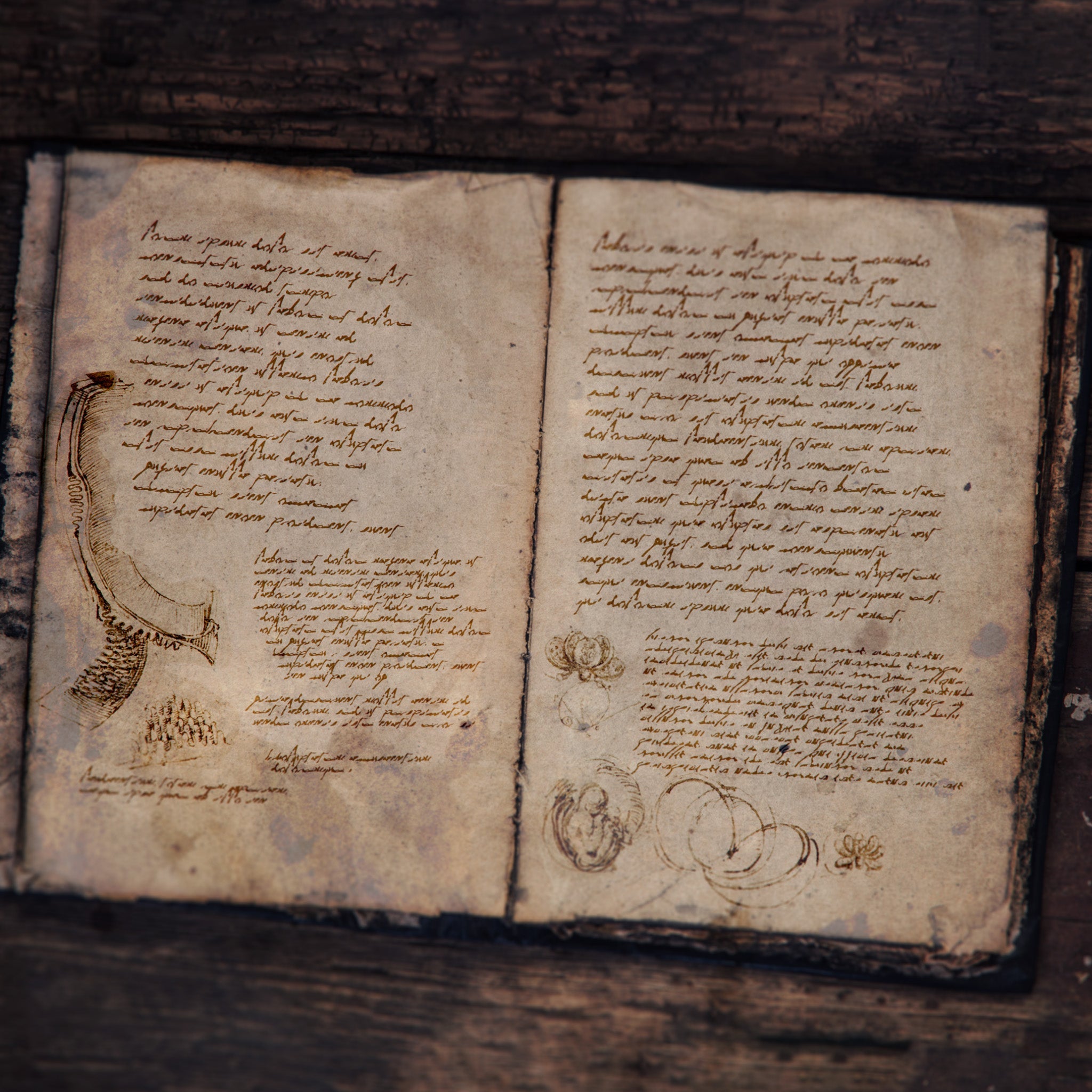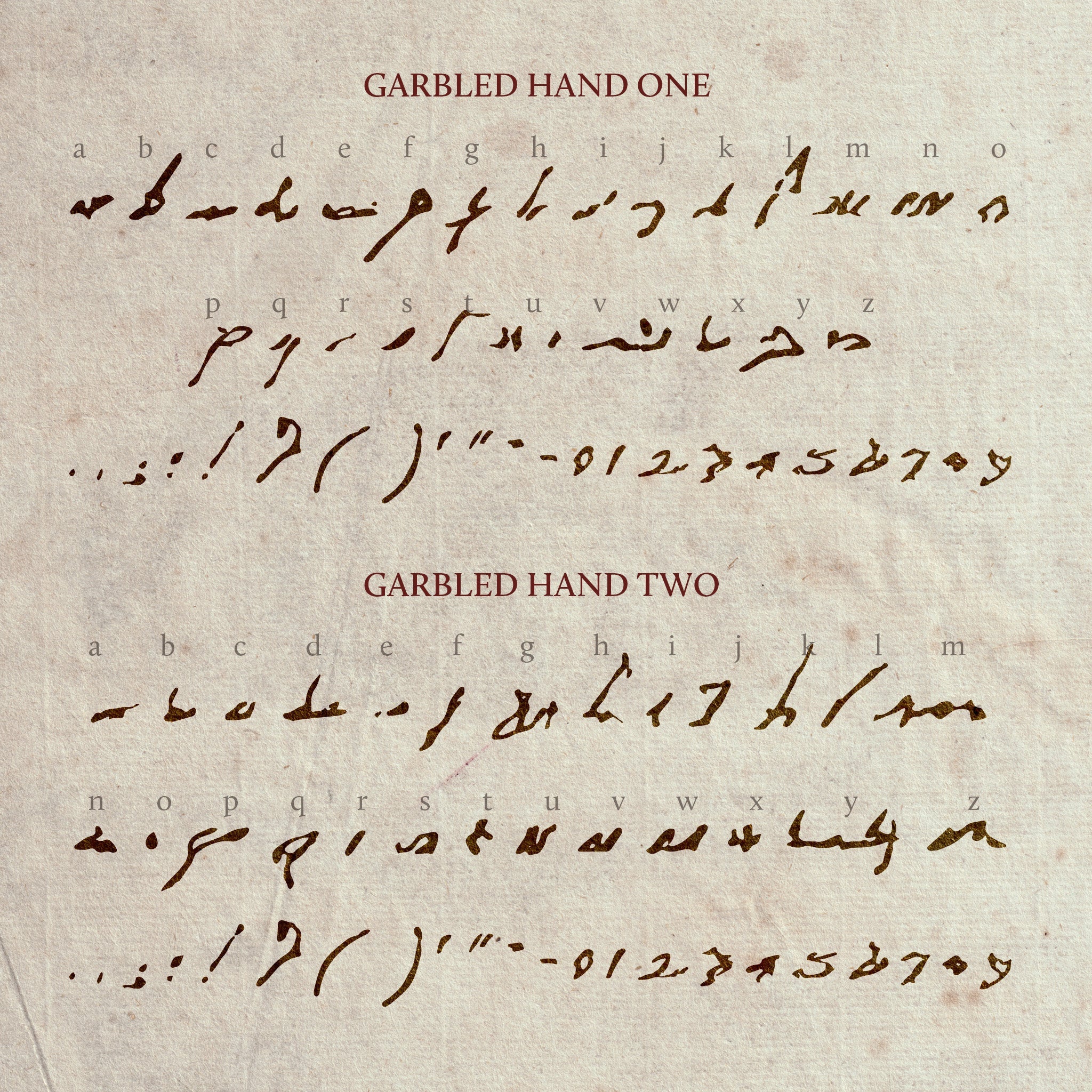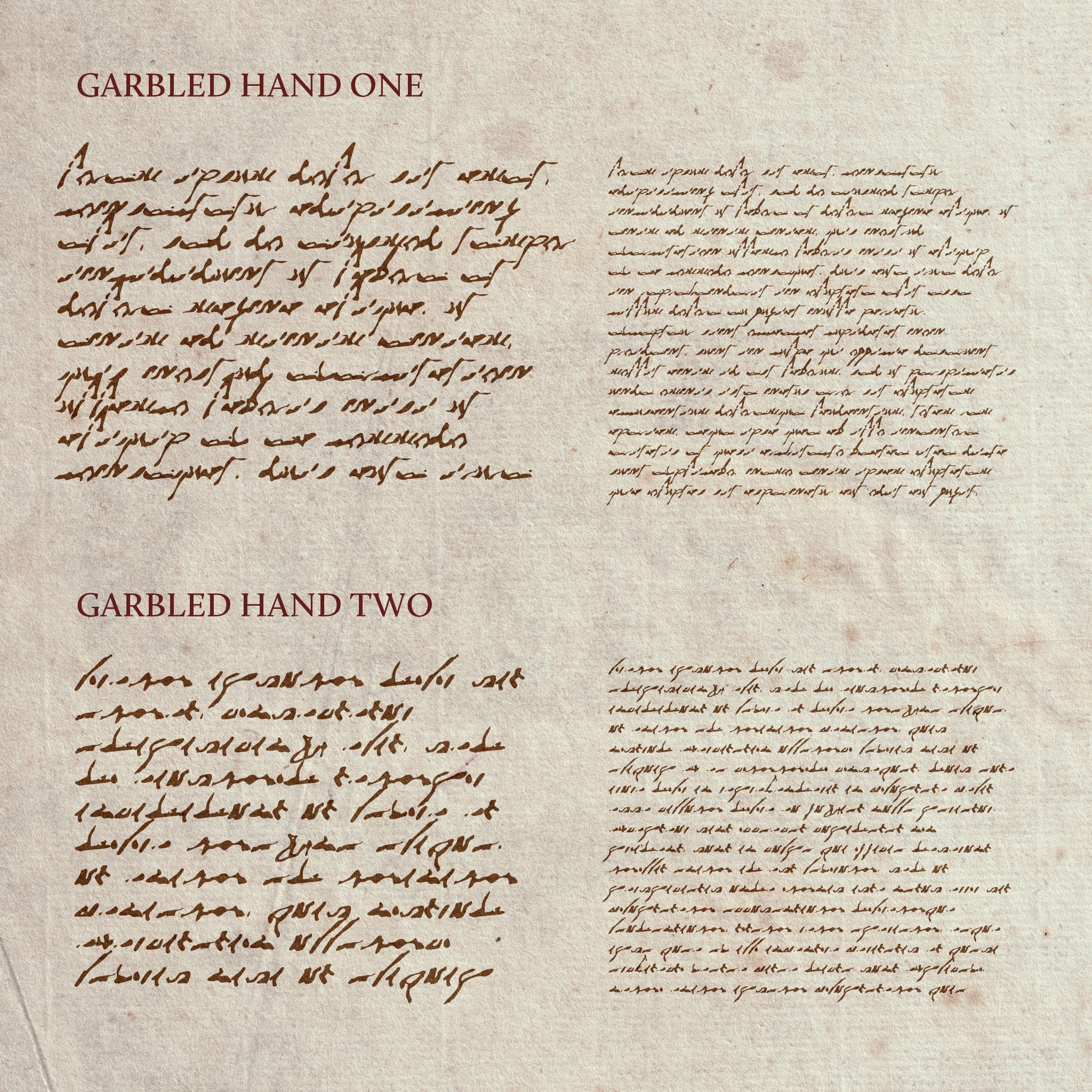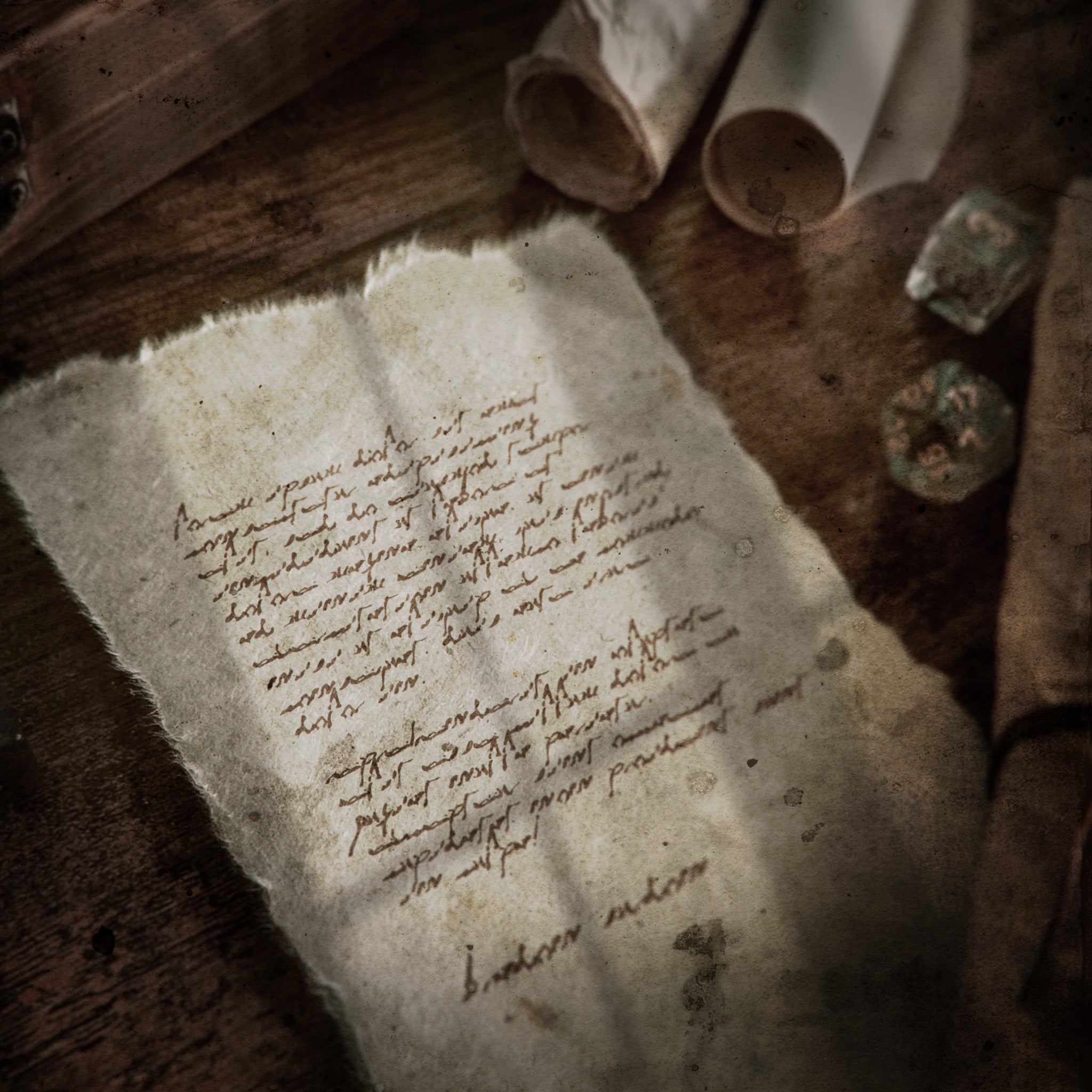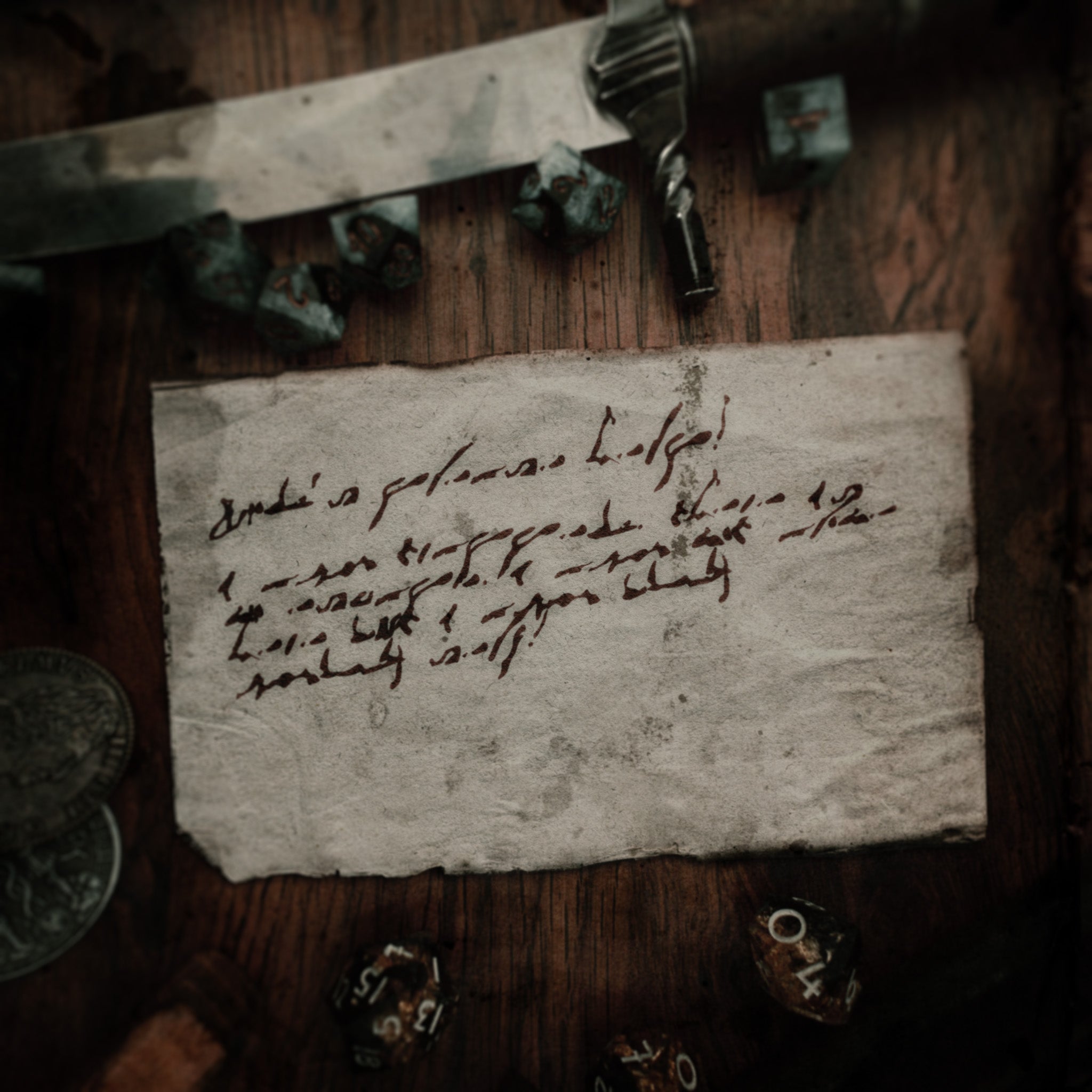
Garbled Hand is a chaotic, terrifying horror font designed specifically for the insane, the corrupted, and the afflicted. Supplied in two beautifully illegible styles, these glyphs mimic the frantic, desperate writings of a madman lost to dark forces. This unique typeface is the ultimate tool for grimdark TTRPG worldbuilding, crafted explicitly to help Game Masters create cryptic notes, corrupted diaries, and sanity-draining player props.
Whether you are adding disturbing graphic decoration to a forbidden grimoire or designing handouts for a cosmic horror campaign, this font sets a chilling tone.
Behold! The thing without purpose! Read not for long what the lines say, for thou may be consumed by their madness!
2 Illegible Horror Font Styles: Two distinct, chaotic variations capturing a fractured and corrupted handwriting aesthetic.